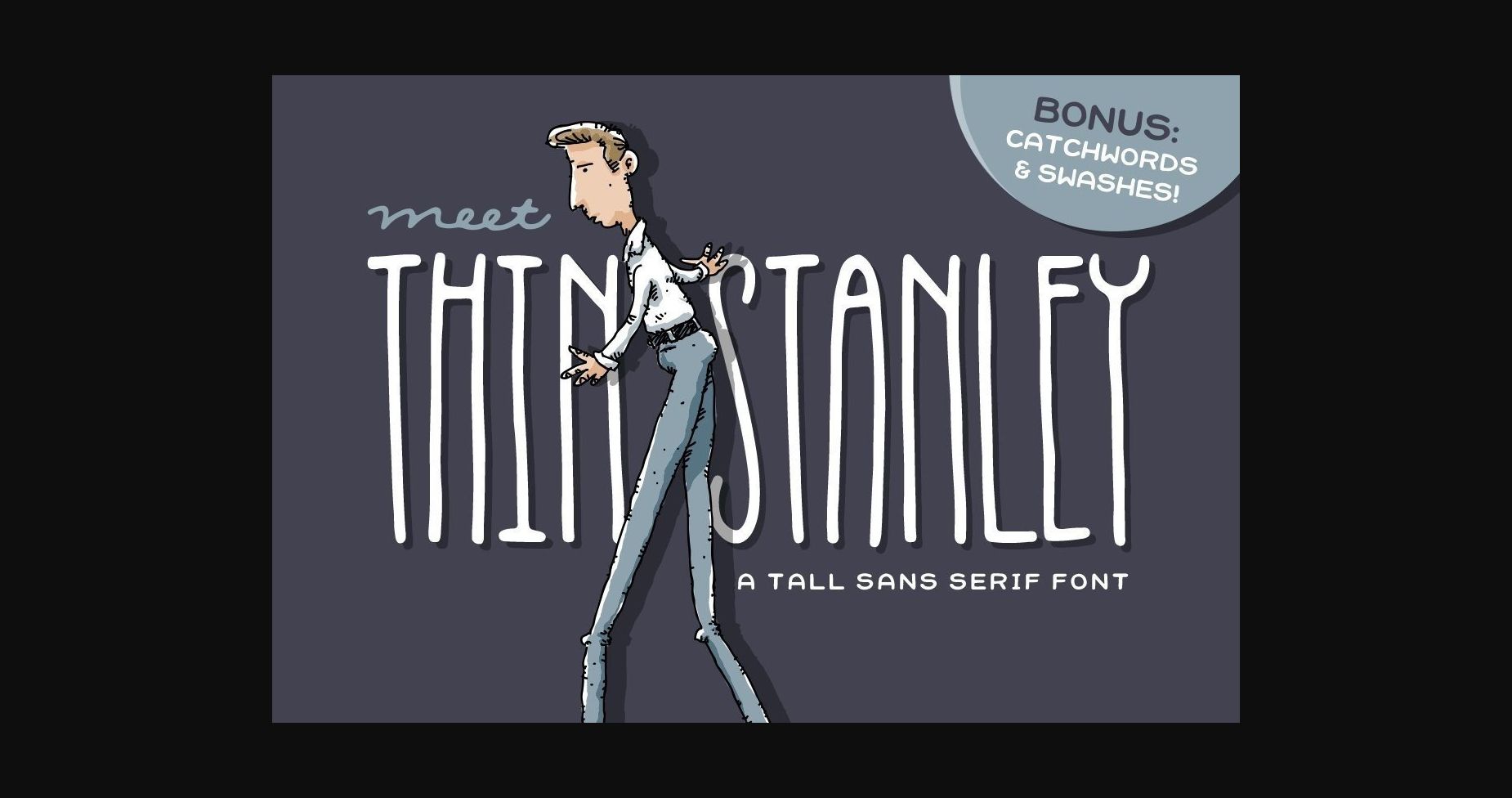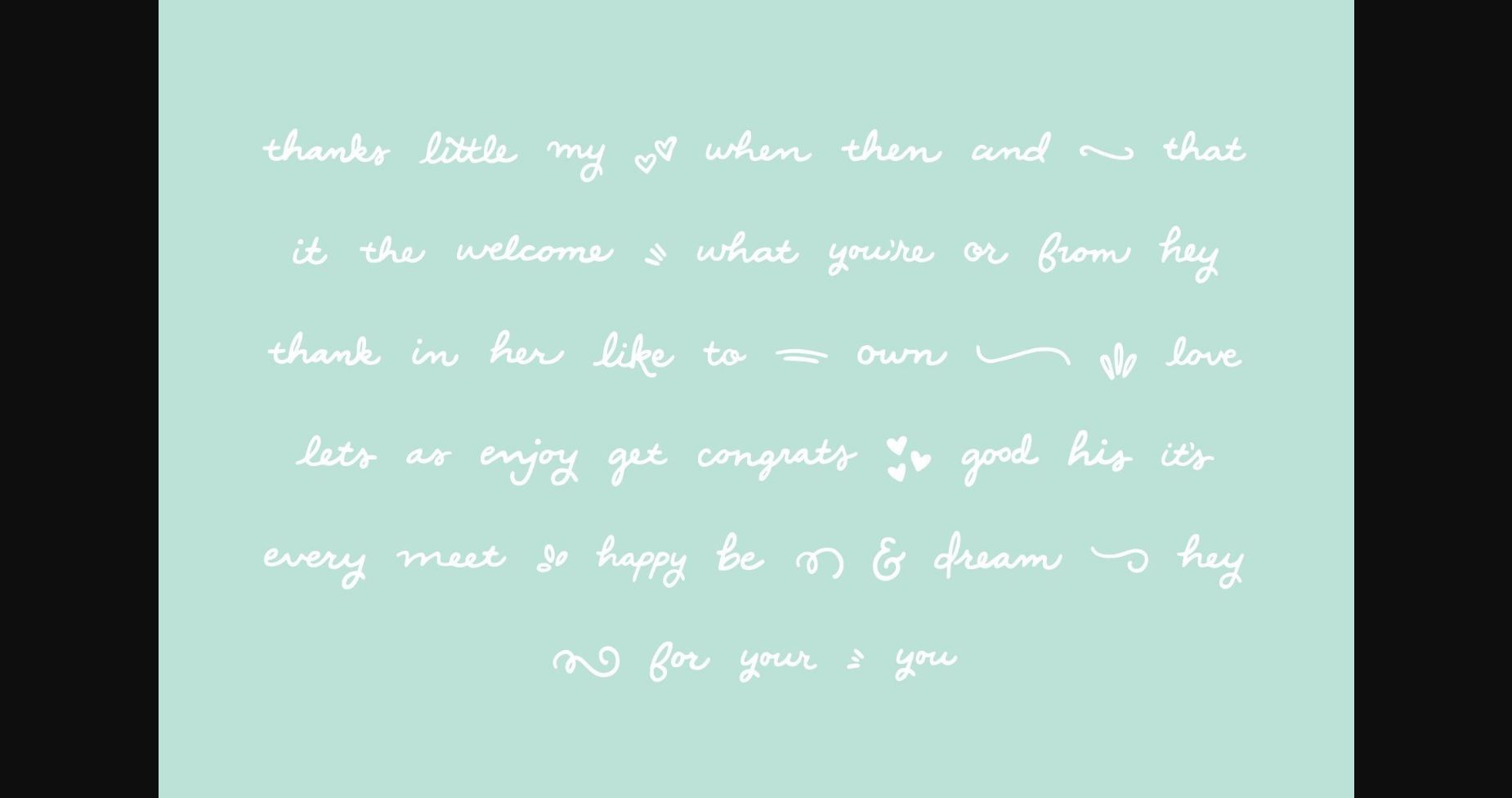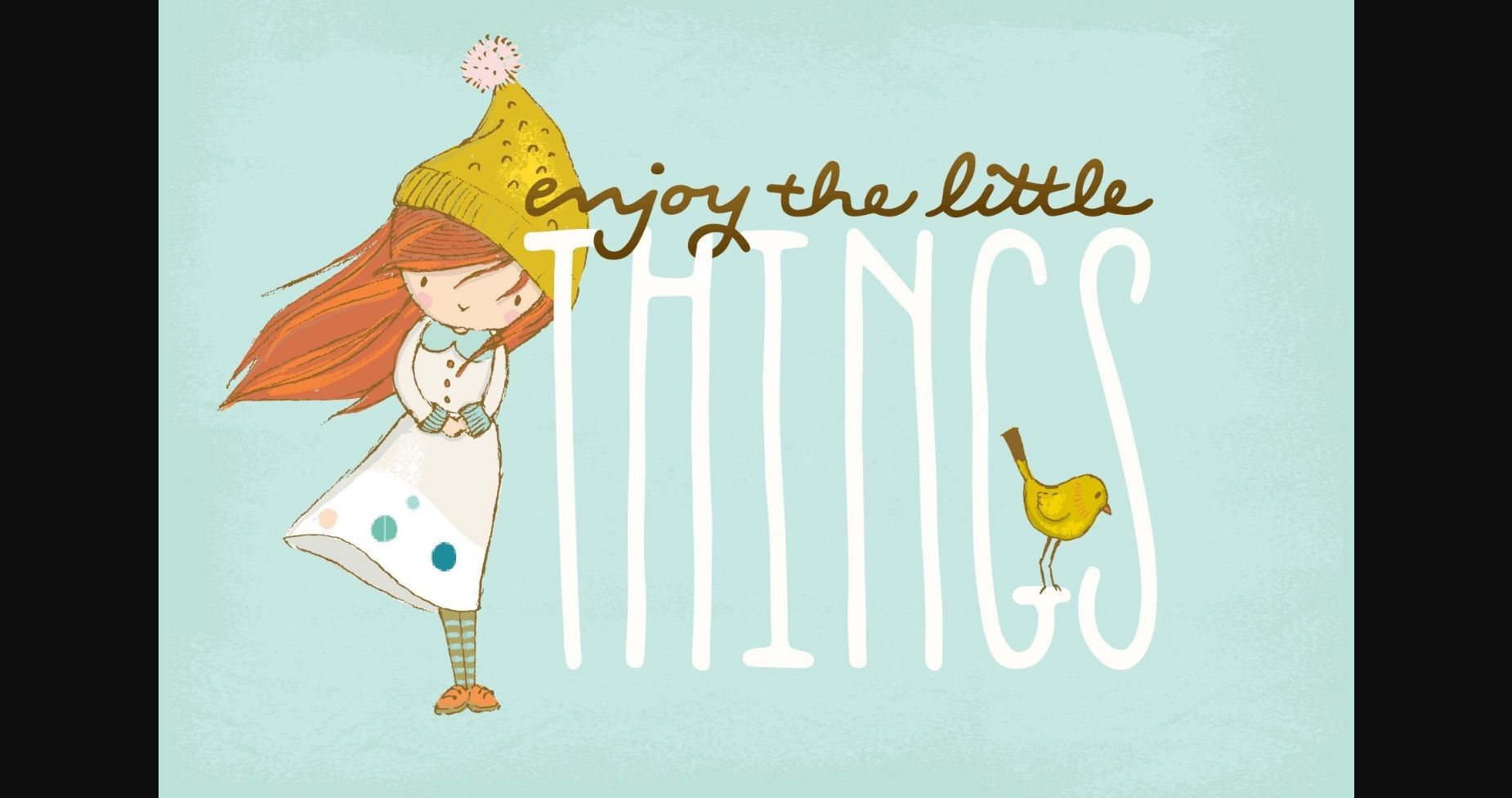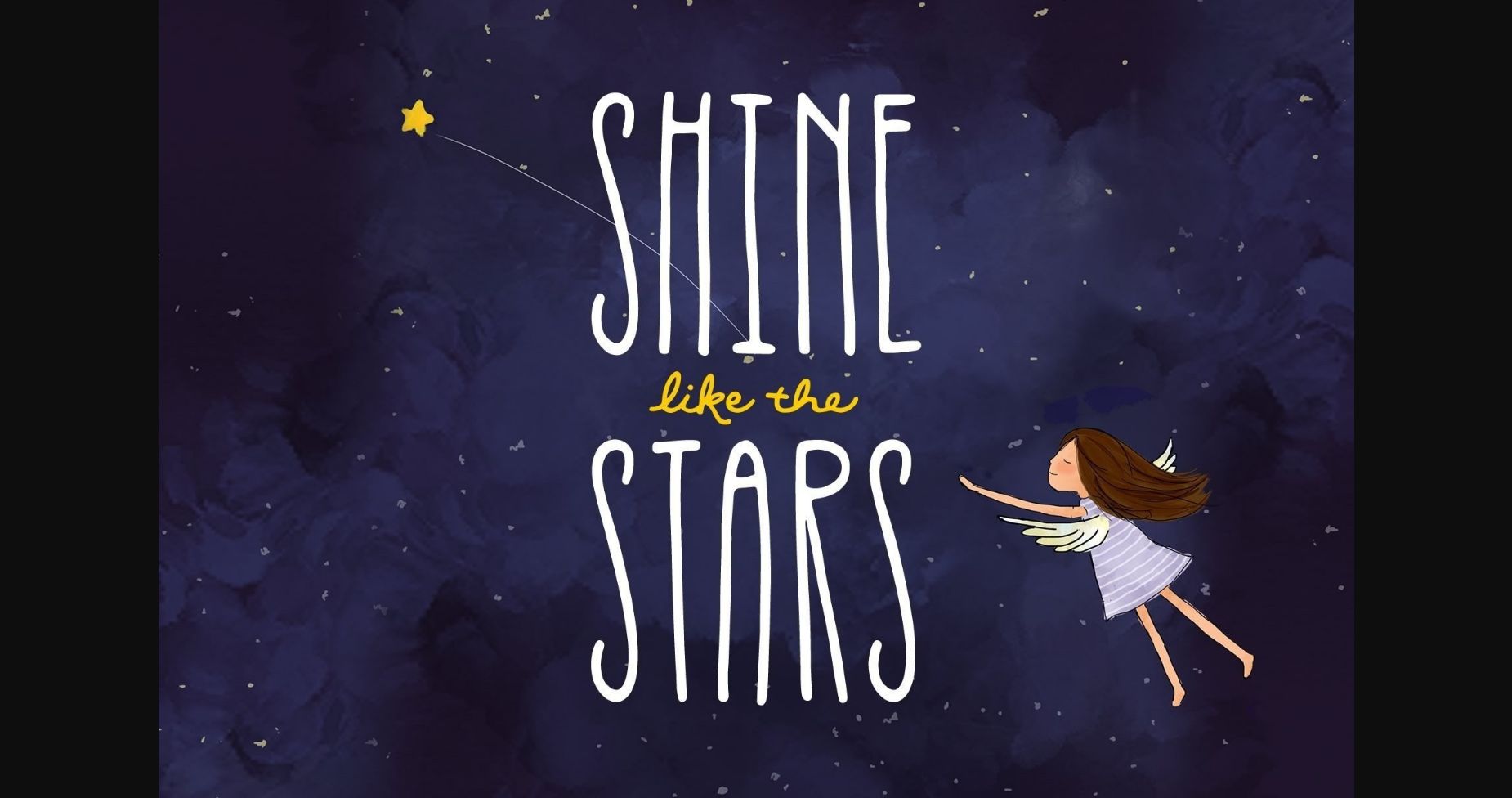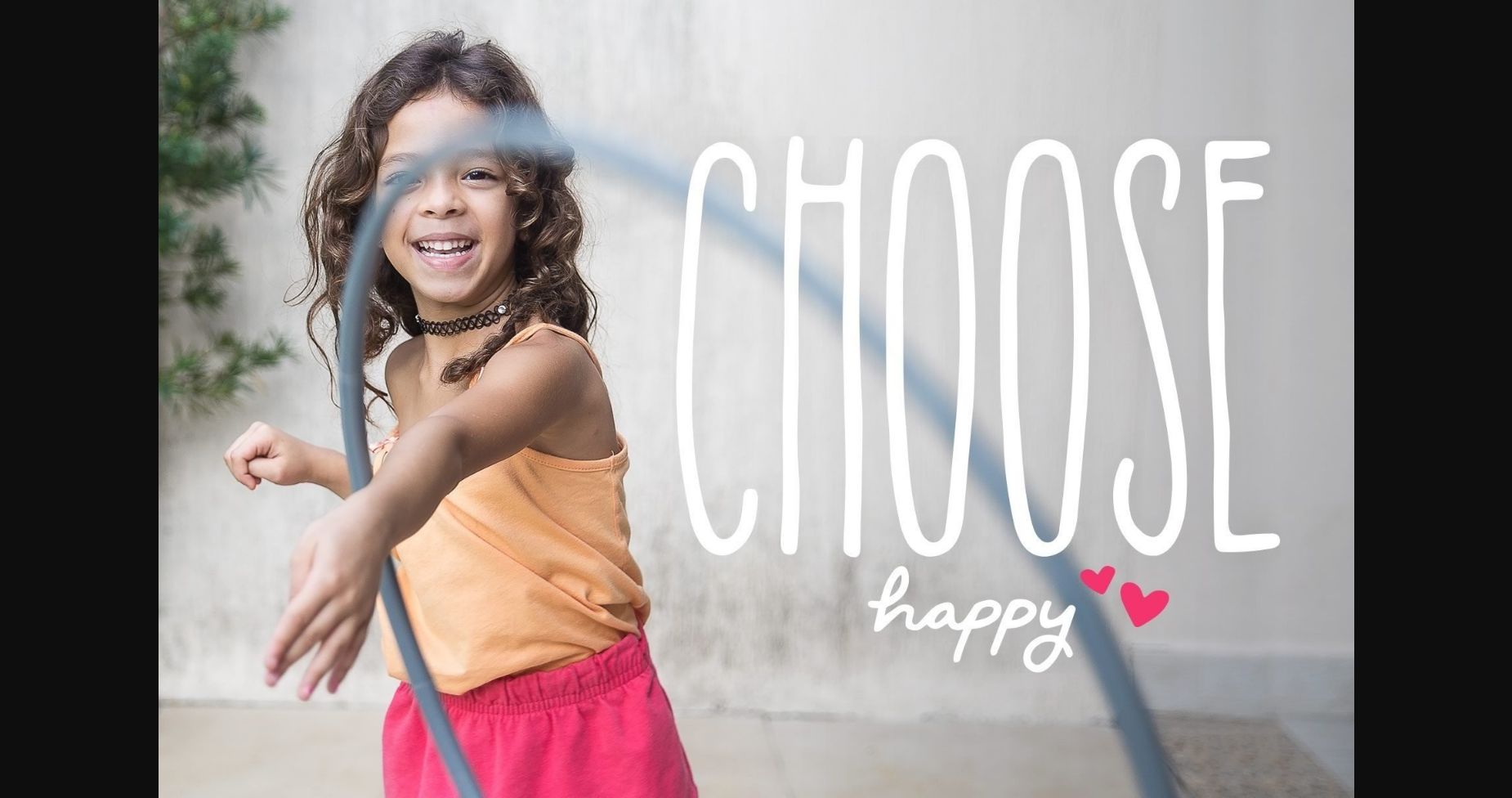
About Thin Stanley Font
Meet Thin Stanley! He’s here to make a big statement and help with those awkward spaces. Thin Stanley is a tall and skinny sans serif font that comes with over fifty coordinating catchwords and swashes that pair perfectly and make for some fun typography.